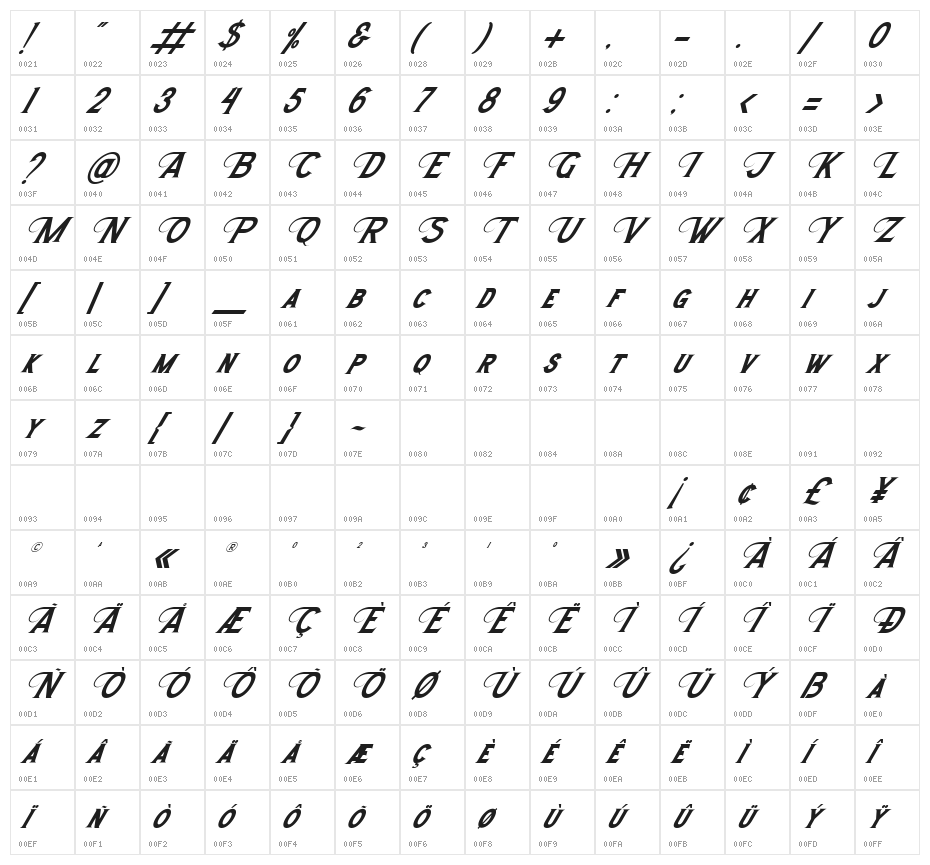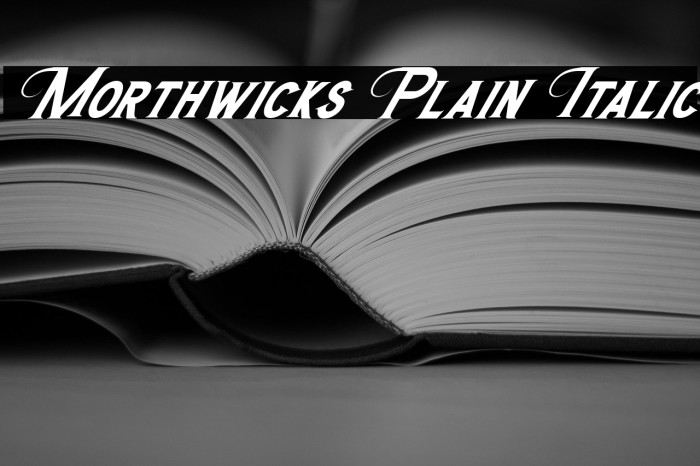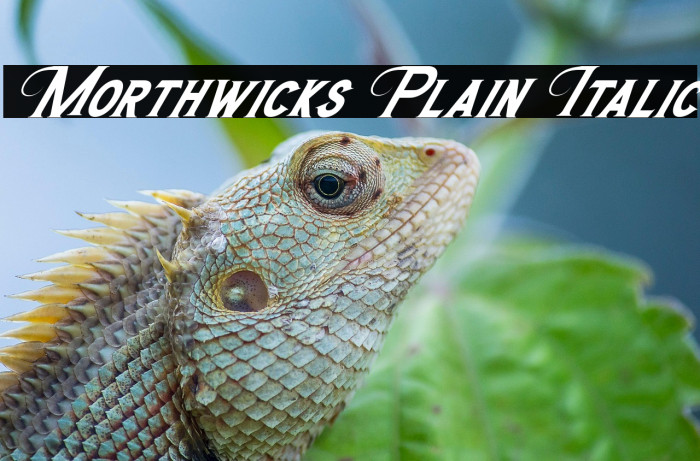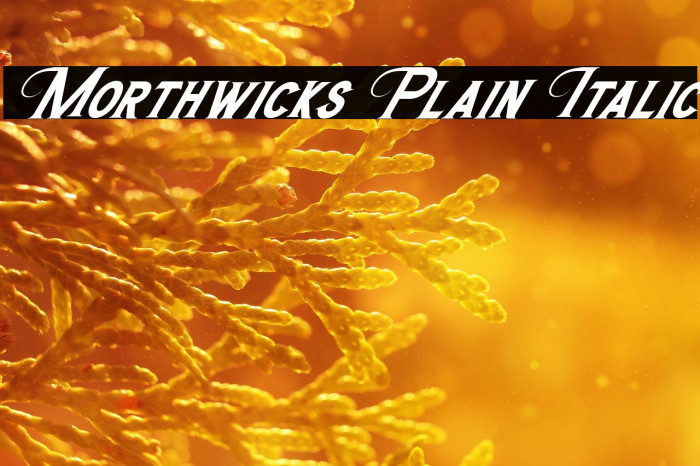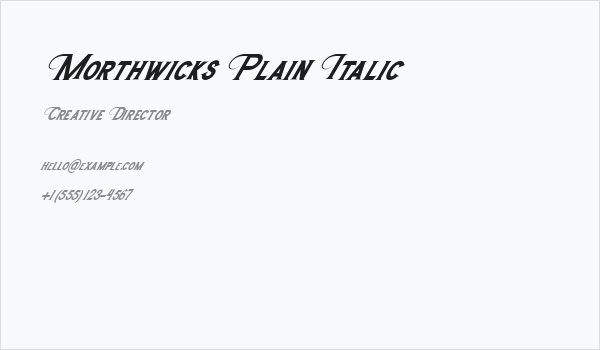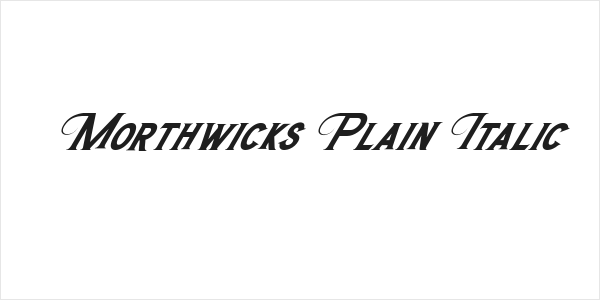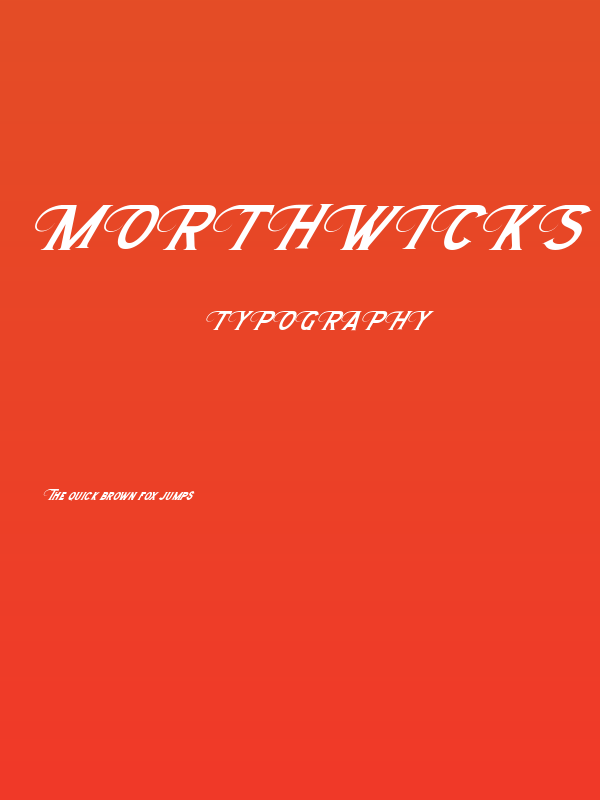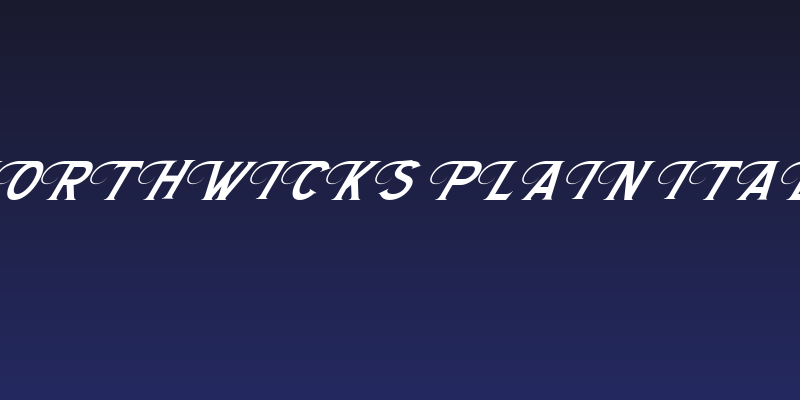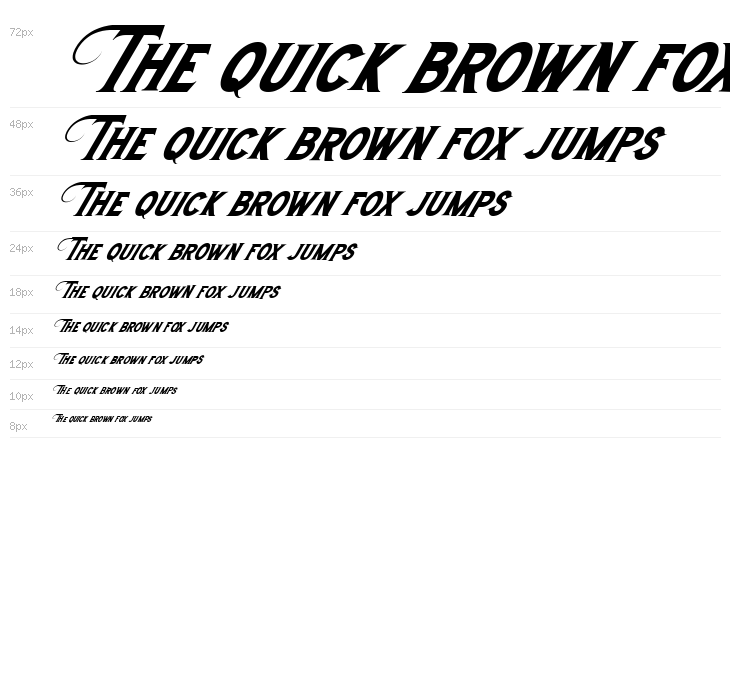
Morthwicks Plain Italic Font
Morthwicks Plain Italic Description
This font features a dynamic and elegant italic style with a strong emphasis on fluidity and movement. The characters are slanted, giving a sense of motion and sophistication. The uppercase letters are bold and prominent, while the lowercase letters maintain a consistent flow. The numerals are clear and distinct, matching the overall aesthetic. Special characters are well-integrated, enhancing the font's versatility. The strokes are smooth, with a moderate contrast that adds to the readability and visual appeal.
| Proposed Projects | Ideal for branding, advertising, and editorial design projects where a touch of elegance and movement is desired. |